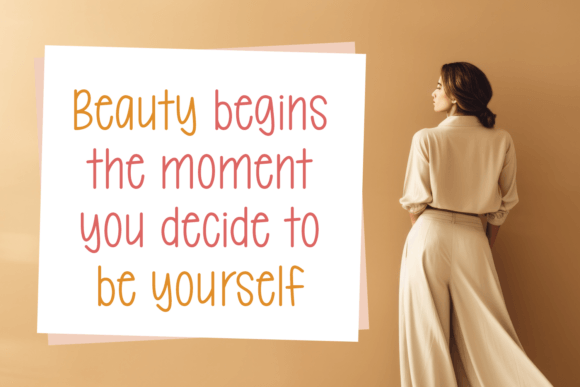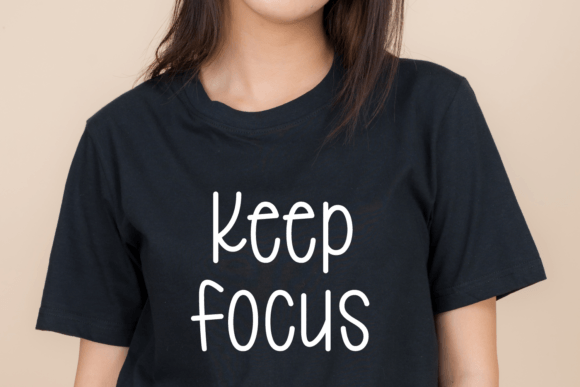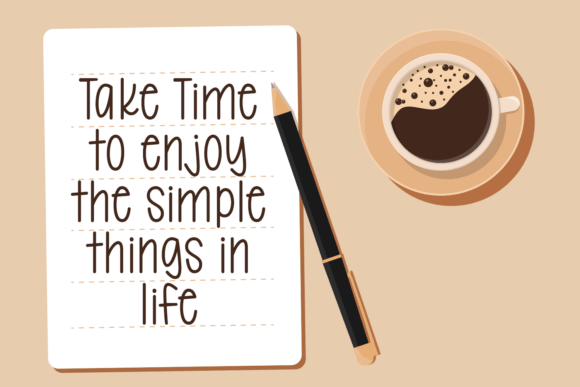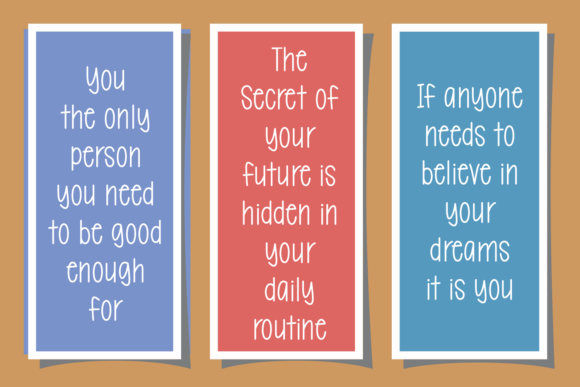
The Perfect Blend of Casual Elegance
Who hasn’t found themselves scribbling down ideas in a notebook or typing away on their computer, trying to capture the essence of a creative moment? For many designers, those fleeting sparks of inspiration can be the key to unlocking a new project or design concept. And what better way to bring those ideas to life than with a font that embodies the perfect blend of casual elegance?
Enter Gentle Fashion Font, a relaxed, handwritten font that exudes a modern, stylish flair. Designed to evoke a sense of laid-back chic, this font is perfect for fashion branding, personal projects, invitations, and any design that calls for a touch of effortless sophistication. Whether you’re a seasoned designer or just starting out, Gentle Fashion Font is an invaluable tool to have in your creative arsenal.
Gentle Fashion Font Key Features
- Font Family: Gentle Fashion Font is a unique, high-quality font designed for fashion and lifestyle applications.
- Font Size: Supports font sizes from 8 to 120 points, making it ideal for a wide range of applications, from small fashion labels to large-scale advertising campaigns.
- Resolution: Optimized for high-resolution displays (Retina and 4K) with a resolution of 300 DPI or higher, ensuring crisp and clear text rendering.
- Unique Characteristics: Gentle Fashion Font features elegant, flowing lines and subtle curves that evoke a sense of sophistication and style, making it perfect for fashion, beauty, and lifestyle brands.
- Character Set: Includes a comprehensive set of characters, including Latin, Cyrillic, and Greek alphabets, as well as a range of punctuation marks and symbols, ensuring you have everything you need to create stunning designs.
Gentle Fashion Font Review
First of all, I want to highlight the ✨ beautiful aesthetics of this font. It’s perfect for any fashion or lifestyle brand looking to convey a sense of elegance and sophistication. The curves are smooth, the lines are delicate, and the overall feel is very high-end.
One of the standout features of Gentle Fashion Font is its ✨ versatility. It works well for both headline and body text, making it a great choice for designers who want a consistent look throughout their project. It’s also ✨ highly legible, even at smaller font sizes.
- ⚠️ Limited language support: Gentle Fashion Font only supports Latin-based languages, which may be a limitation for designers working on projects that require support for other languages.
- ⚠️ No bold or italic variations: While the font is beautiful in its regular weight, it would be great to have bold and italic variations to add more visual interest to designs.
Overall, I think Gentle Fashion Font is a great choice for designers who want a high-end, elegant font for their fashion or lifestyle projects. While it has some limitations, its beauty and versatility make it a solid choice for many designers.
To get the most out of the Gentle Fashion Font, use it sparingly and in combination with other design elements. Experiment with different font sizes, colors, and styles to create visually appealing designs. Avoid overusing the font, as it may become too repetitive and lose its impact.
The Gentle Fashion Font is ideal for:
- Women’s fashion and beauty brands
- Interior design and home decor
- Wedding and event planning
- High-end lifestyle and luxury brands
Alice Script is a beautiful, elegant script font that is perfect for adding a touch of sophistication to your designs. It’s ideal for use in titles, headings, and other areas where you want to create a sense of luxury and refinement. Compared to Gentle Fashion Font, Alice Script has a more refined and delicate feel, making it suitable for high-end fashion and luxury brands.
Q: What is the recommended font size for Gentle Fashion Font?
The recommended font size for Gentle Fashion Font is between 12pt and 24pt, depending on the context and design requirements. For body text, 14pt to 16pt is a good starting point, while for headings and titles, 18pt to 24pt is more suitable.